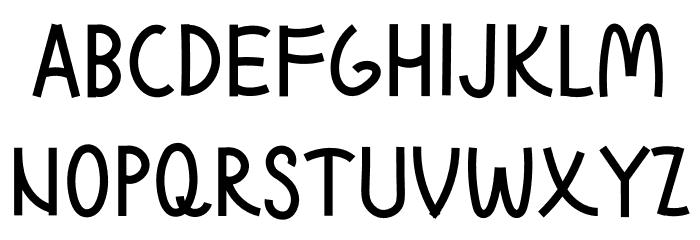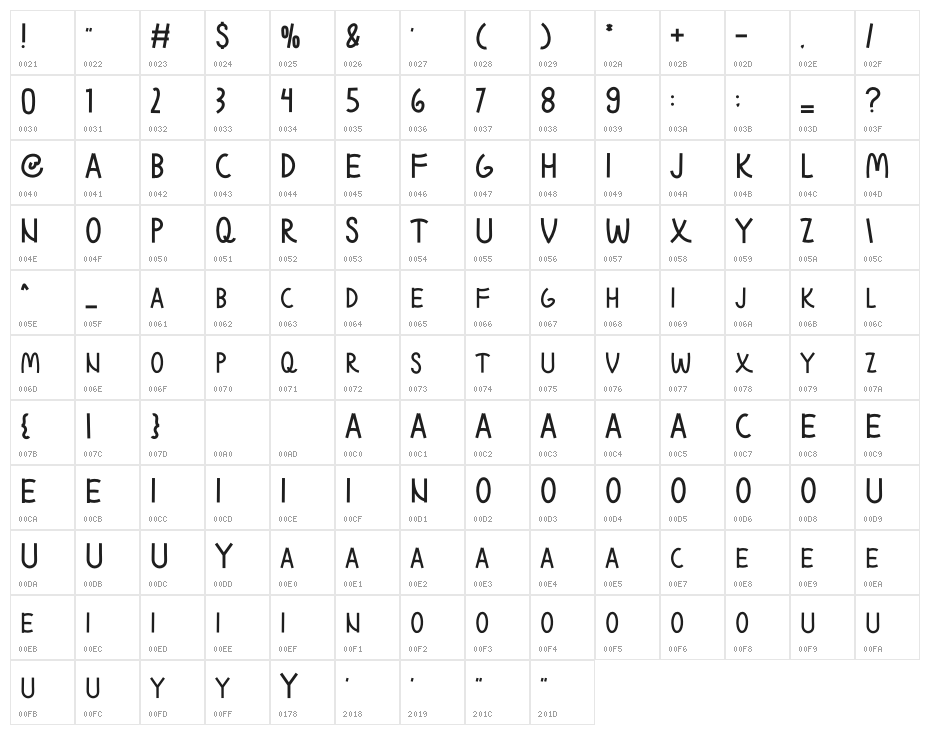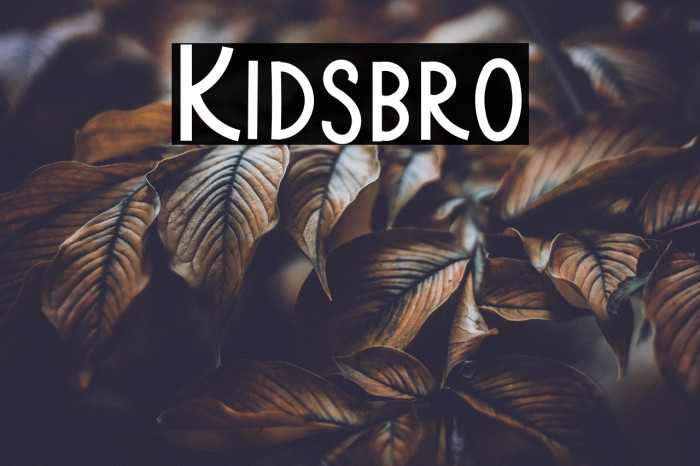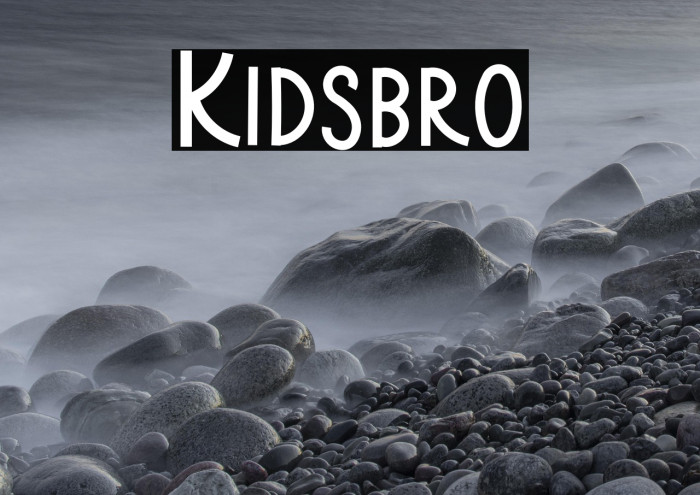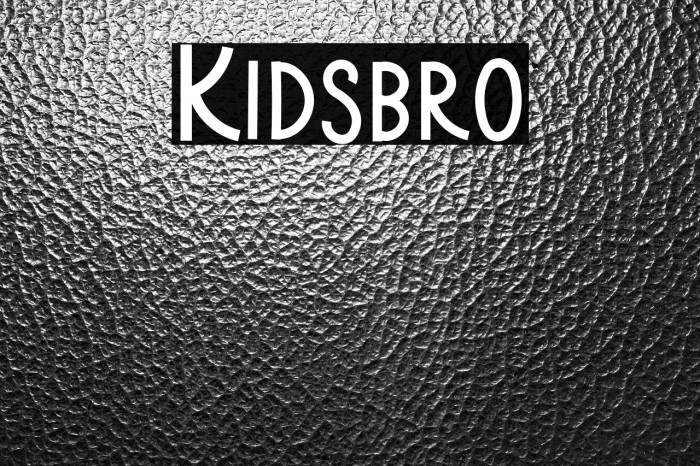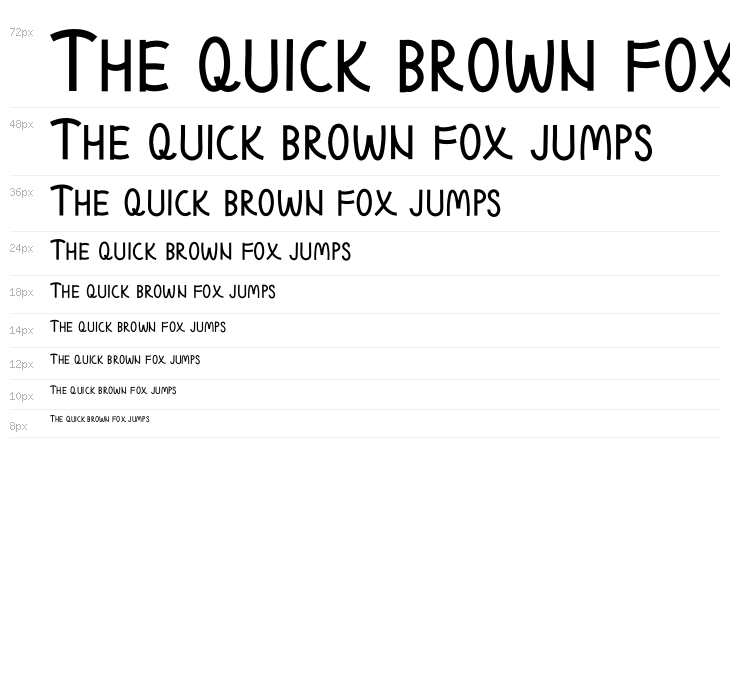
Kidsbro Font
This playful and whimsical font features a handwritten style with a casual and friendly appearance. The characters are slightly uneven, adding to its charm and making it feel approachable and fun. The uppercase and lowercase letters maintain a consistent style, with rounded edges and a slight tilt, giving it a dynamic and lively feel. The numbers and special characters are designed to match the playful nature of the alphabet, ensuring a cohesive look across all text. This font is perfect for projects that require a touch of personality and warmth.
- Proposed Projects: Ideal for children's books, playful branding, greeting cards, and informal invitations.
- Overall Style: Playful
- Use Case: Headlines, Logos, Informal Text